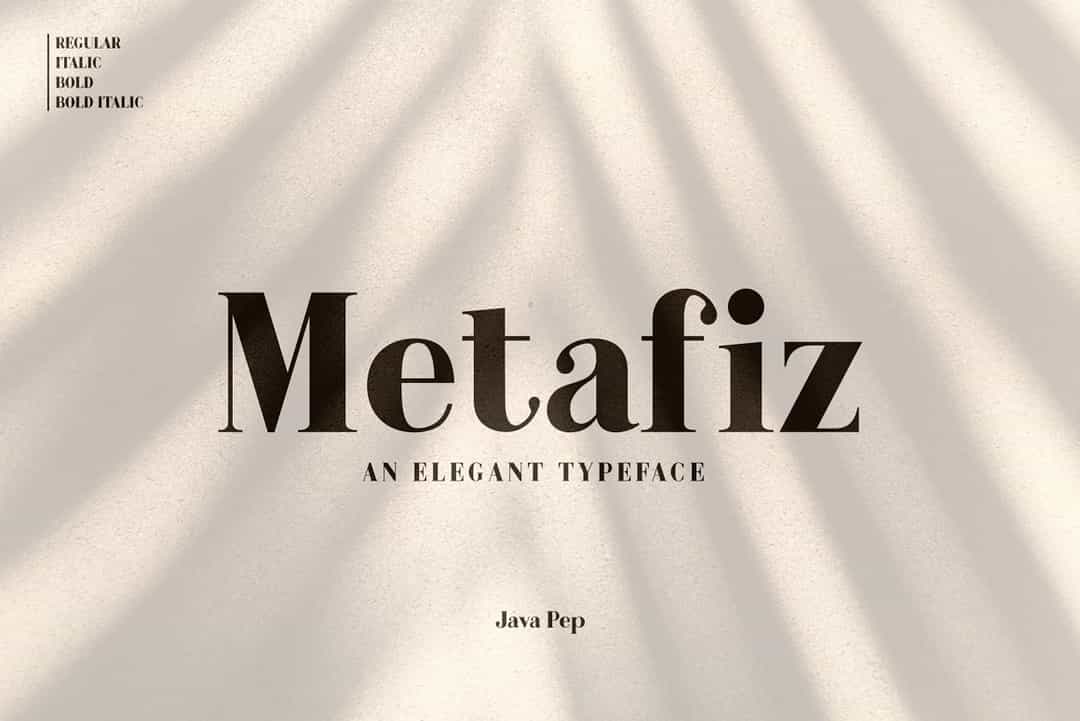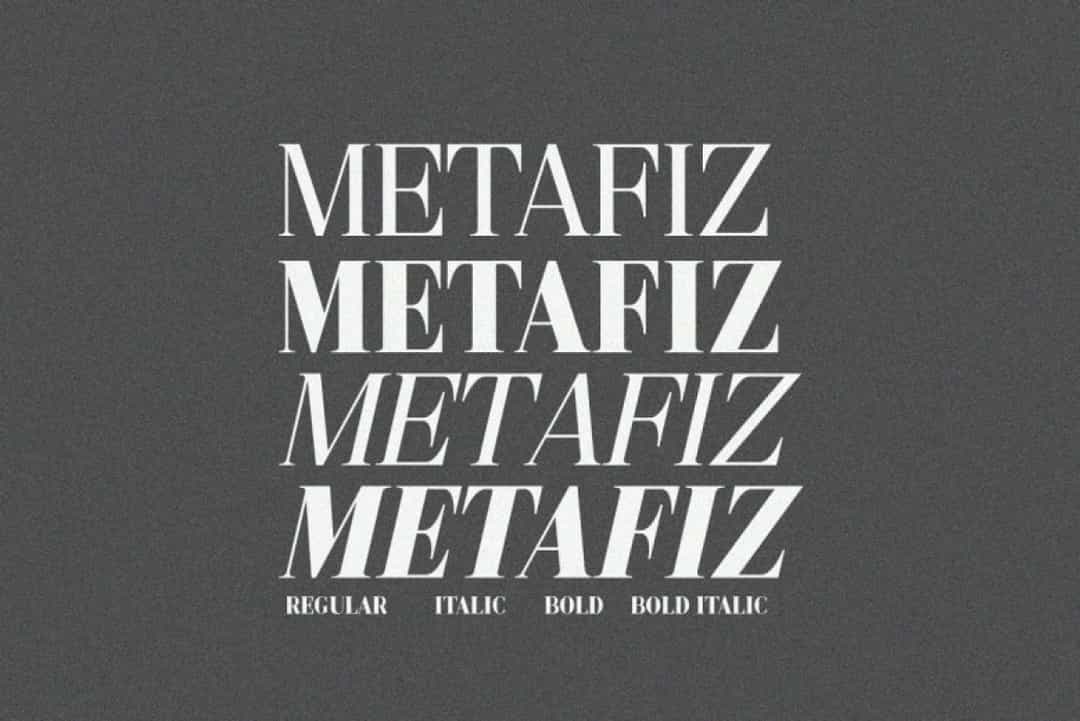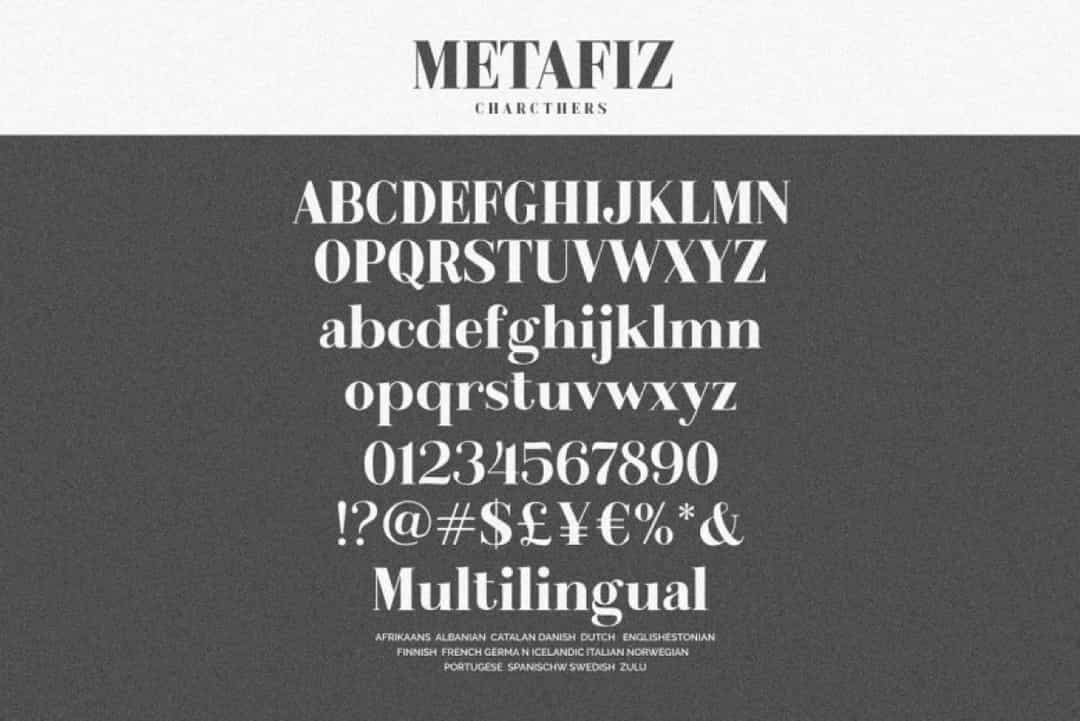
Metafiz is an elegant serif typeface with distinctive characteristics: elegant sophistication, stylish appearance and an outstanding design. Available in four distinct styles – regular, italic bold and bold – its features ensure it won’t pose a problem, featuring uppercase, lowercase letters as well as numerals, punctuation marks, multilingual support of 17 languages.